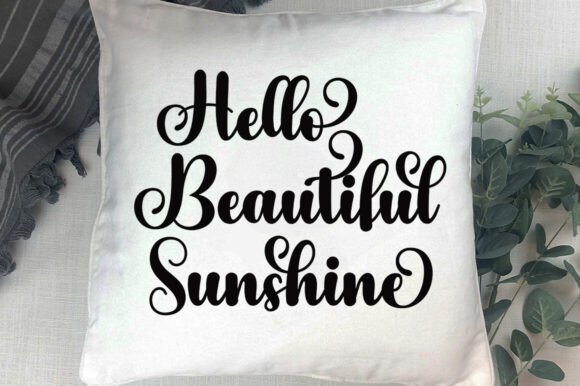
Hello Boho Font
Hello Boho fonts are charming and elegant. This stunning script font is a stylish homage to classic calligraphy. This font will elevate any design project to the highest level, be it branding, titles, wedding designs, invitations, signs, logos, labels, and more!